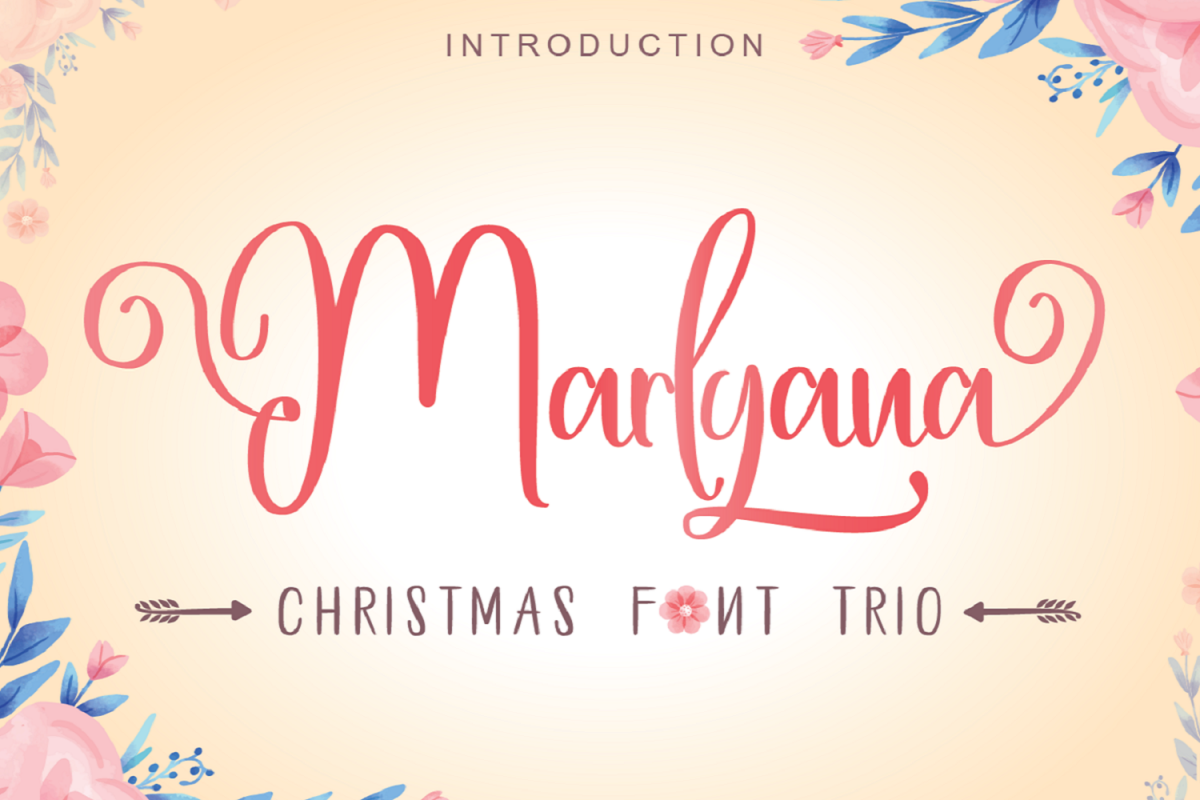
Happy Marlyana font trio
Subotype Studio happily present oure new font product''Happy Marlyana Font Trio" a new fresh handmade calligraphy font come with 3 style variation that really sweet together. Very suitable for greeting cards, branding materials, business cards, quotes, posters, and more!
FEATURE
• Ligatture
• Opentype Alternates
• Multiligual Suport